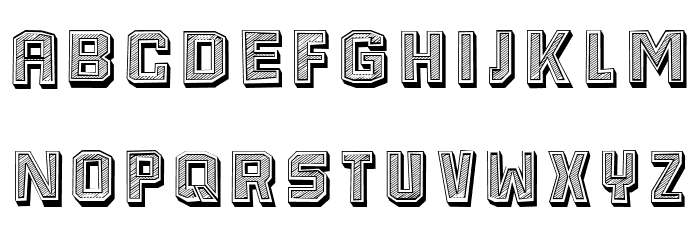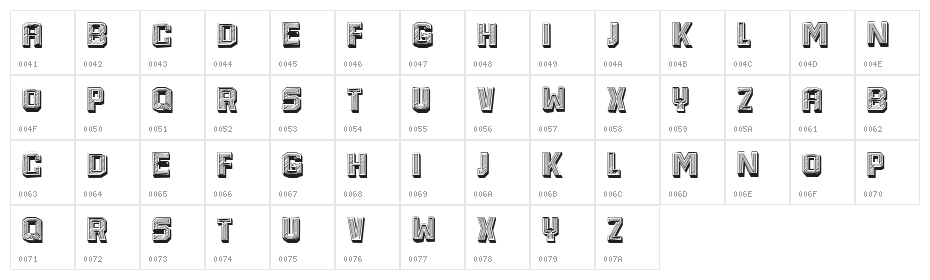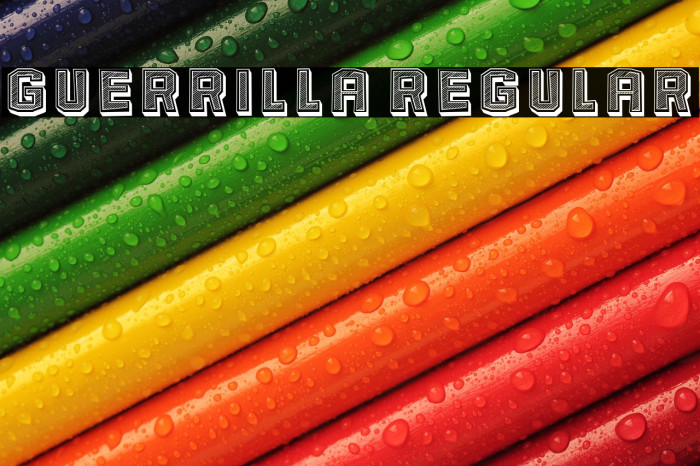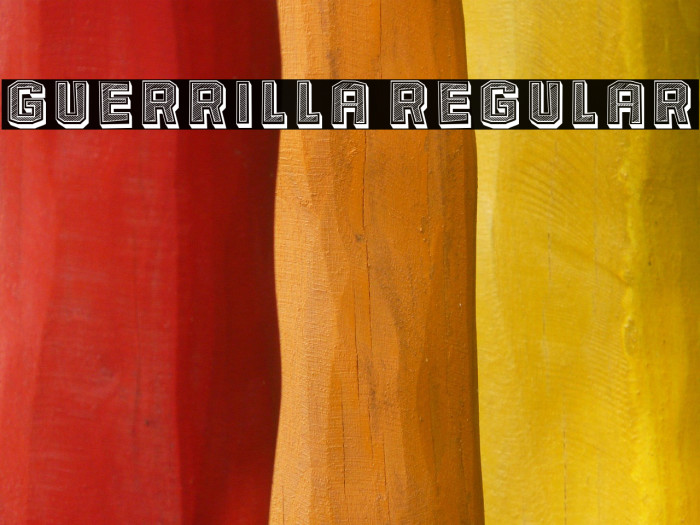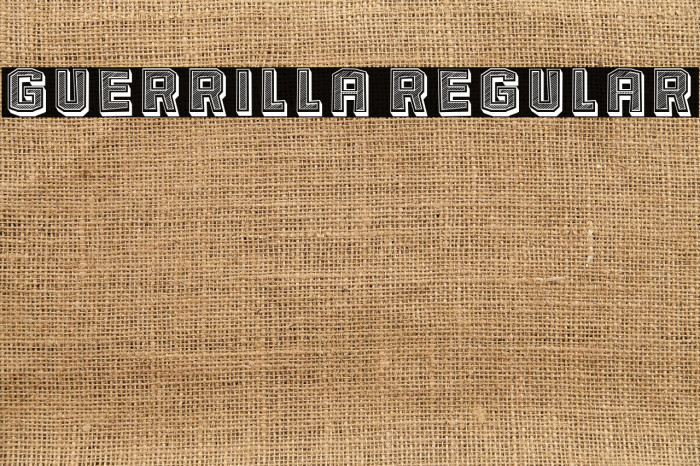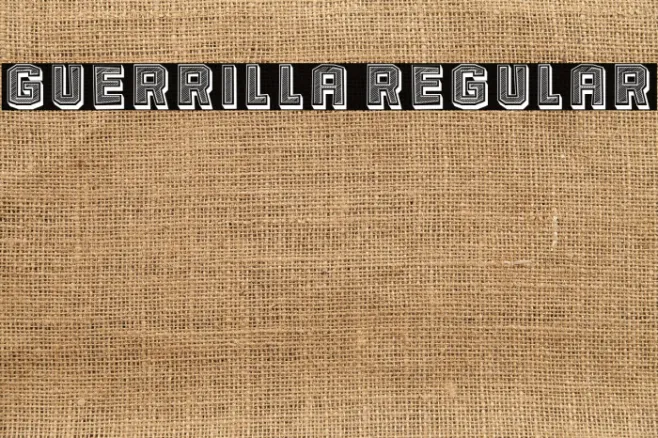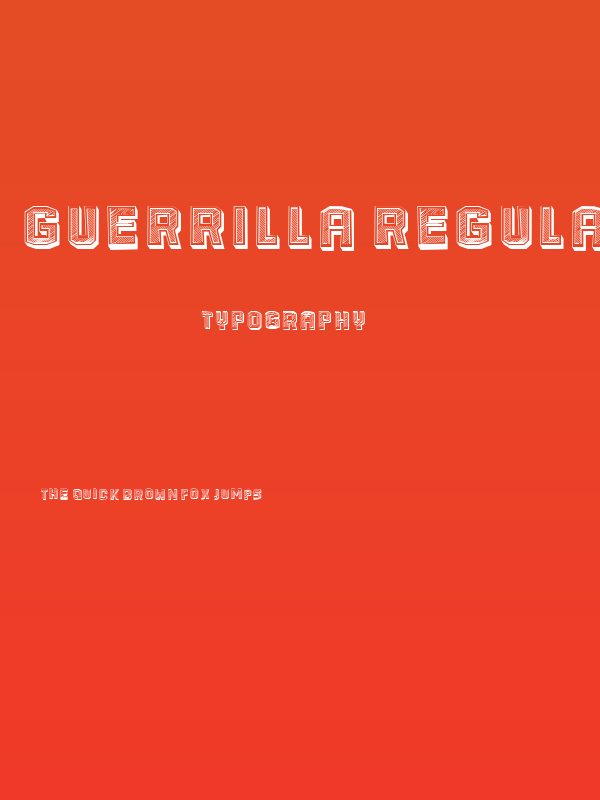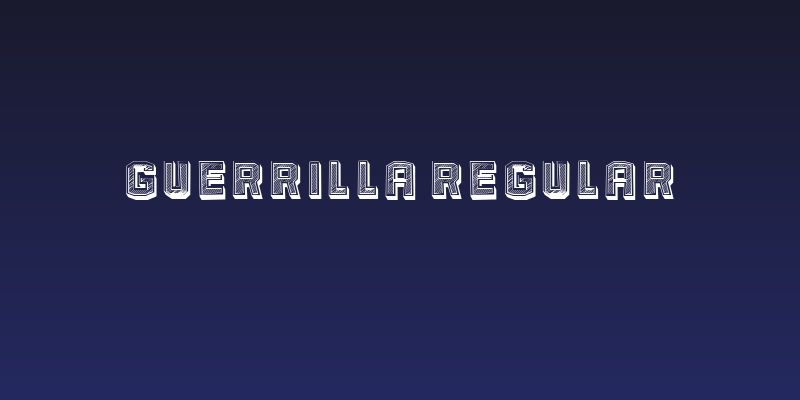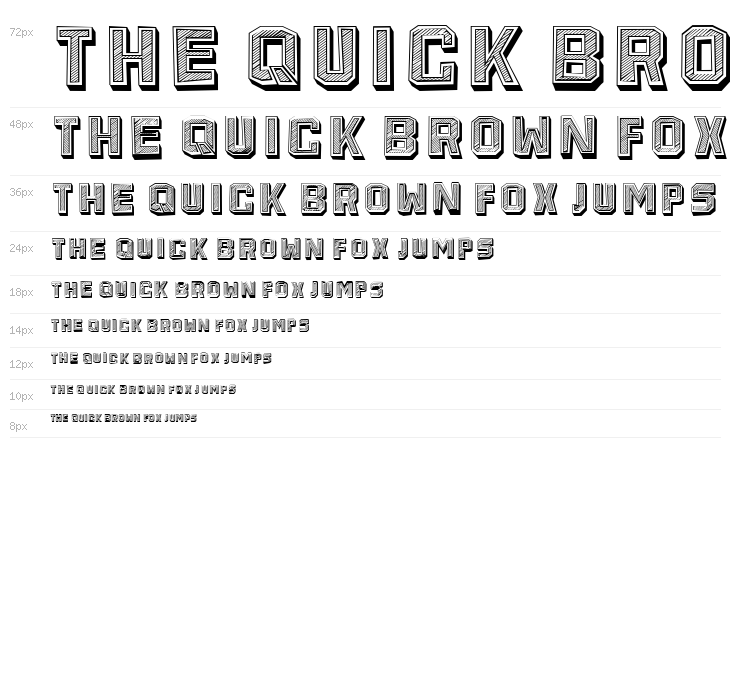
Guerrilla Regular Font
Guerrilla Regular Description
This font features a bold, three-dimensional design with a distinct shadow effect, giving it a strong and impactful appearance. Each character is outlined with a thick border, enhancing its visibility and making it stand out. The internal lines within the letters add a textured, engraved look, reminiscent of vintage signage or posters. The uppercase letters are uniform in height, with consistent spacing that maintains readability while emphasizing the decorative style. This font's unique aesthetic makes it suitable for projects that require a bold statement or a retro feel.
| Proposed Projects | Ideal for posters, logos, book covers, and any design needing a bold, vintage touch. |